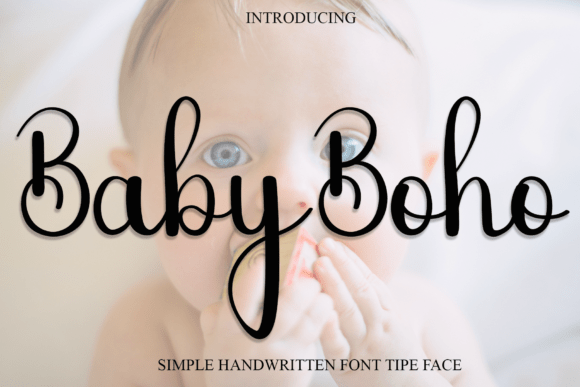
Getting Cozy with Typography
As a designer, have you ever found yourself scribbling down notes in a journal, trying to capture the essence of a beautiful sunset or a warm conversation with a loved one? The scribbles may not be perfect, but they’re full of character and personality – and that’s exactly what the Baby Boho Font is all about.
This charming handwritten font is designed to evoke a cozy and relaxed feeling, perfect for personal notes, invitations, or anything that needs a touch of warmth. Its playful letters have a soft, friendly vibe that’s hard to resist, making it a valuable addition to any designer’s toolkit.
With its unique style and casual look, the Baby Boho Font is a great choice for designers looking to add a personal touch to their work. Whether you’re creating a wedding invitation or a heartfelt letter, this font is sure to bring a smile to your readers’ faces.
Baby Boho Font Key Features
• Unique Characteristics: The font’s distinctive, hand-drawn style and whimsical flair make it perfect for creating a bohemian, eclectic, or vintage-inspired aesthetic in your designs.
Baby Boho Font Review
I recently had the chance to work with the Baby Boho Font, and I have to say it’s a sweet addition to any design project. ✨ The font’s playful and whimsical nature makes it perfect for creating a bohemian-inspired aesthetic. I especially love how it looks with bold text – the contrast really brings out the charm of the font.
One of the things that really stood out to me was the versatility of the font. ✨ It works well for a variety of projects, from invitations to quotes, and even for creating custom watermarks. The font’s unique character set also makes it easy to add some extra flair to your designs.
While the Baby Boho Font is a great choice for many projects, there are a few limitations to be aware of. ⚠️ For one, the font may not be the best choice for formal or professional projects, as its playful nature may not be suitable for more formal designs. Additionally, the font may not be as legible in smaller text sizes, which could be a concern for projects that require a lot of fine print.
• Not suitable for formal or professional projects
• May not be as legible in smaller text sizes
Overall, I think the Baby Boho Font is a great choice for designers who want to add a touch of whimsy and personality to their projects. With its unique character set and playful nature, it’s a great way to add some visual interest to your designs. Just be aware of the limitations and use it accordingly.
Tips for Getting the Most Out of Baby Boho Font
For the best results, use Baby Boho Font in designs that require a whimsical, hand-drawn feel. This font is particularly suitable for children’s products, party invitations, and creative business branding.
Some common use cases for Baby Boho Font include:
– Children’s book covers and illustrations
– Party invitations and decorations
– Creative business branding and marketing materials
– Personalized gifts and stationery